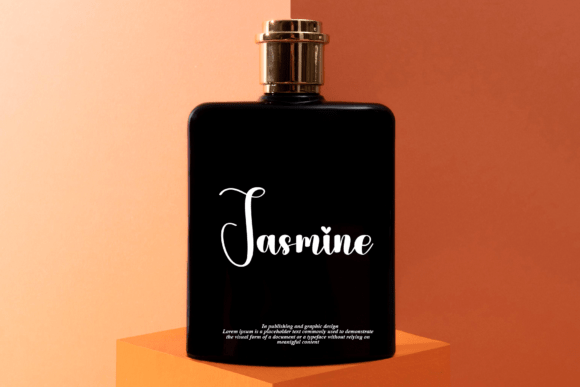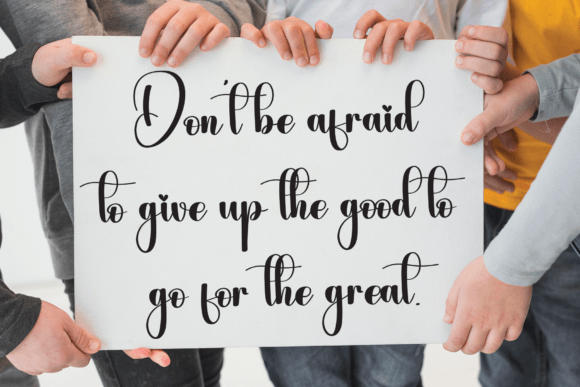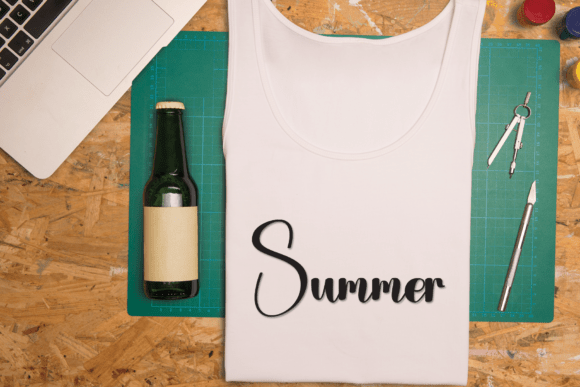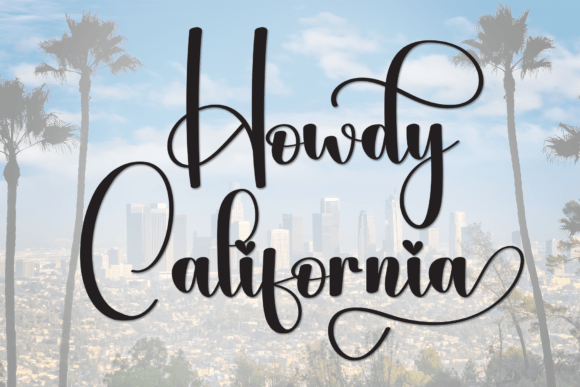
Introduction to Howdy California Font
β€œHowdy California” font exemplifies a lively and elegant handwritten script with a strong romantic flair.
It features tall, flowing ascenders and dramatic flourishes that bring a sense of movement and personality to the text Rounded strokes, heart-shaped dot accents (seen in the β€œi”), and delicate swashes give it a whimsical yet refined feel.
Key Features of Howdy California Font
Why Choose Howdy California Font?